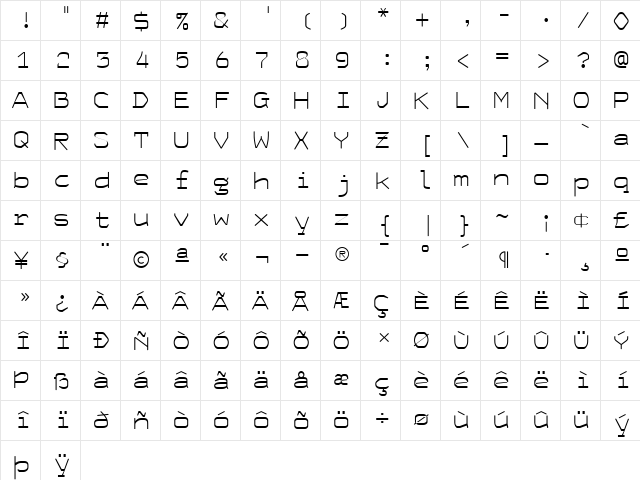
HardCase Regular
Design Context for HardCase Typeface
HardCase offers clean, dependable letterforms without strong stylistic allegiance, making it a practical choice for designers who need flexibility.
Pro Tip: Use HardCase in both headline and body roles to test its range before committing to a single application.